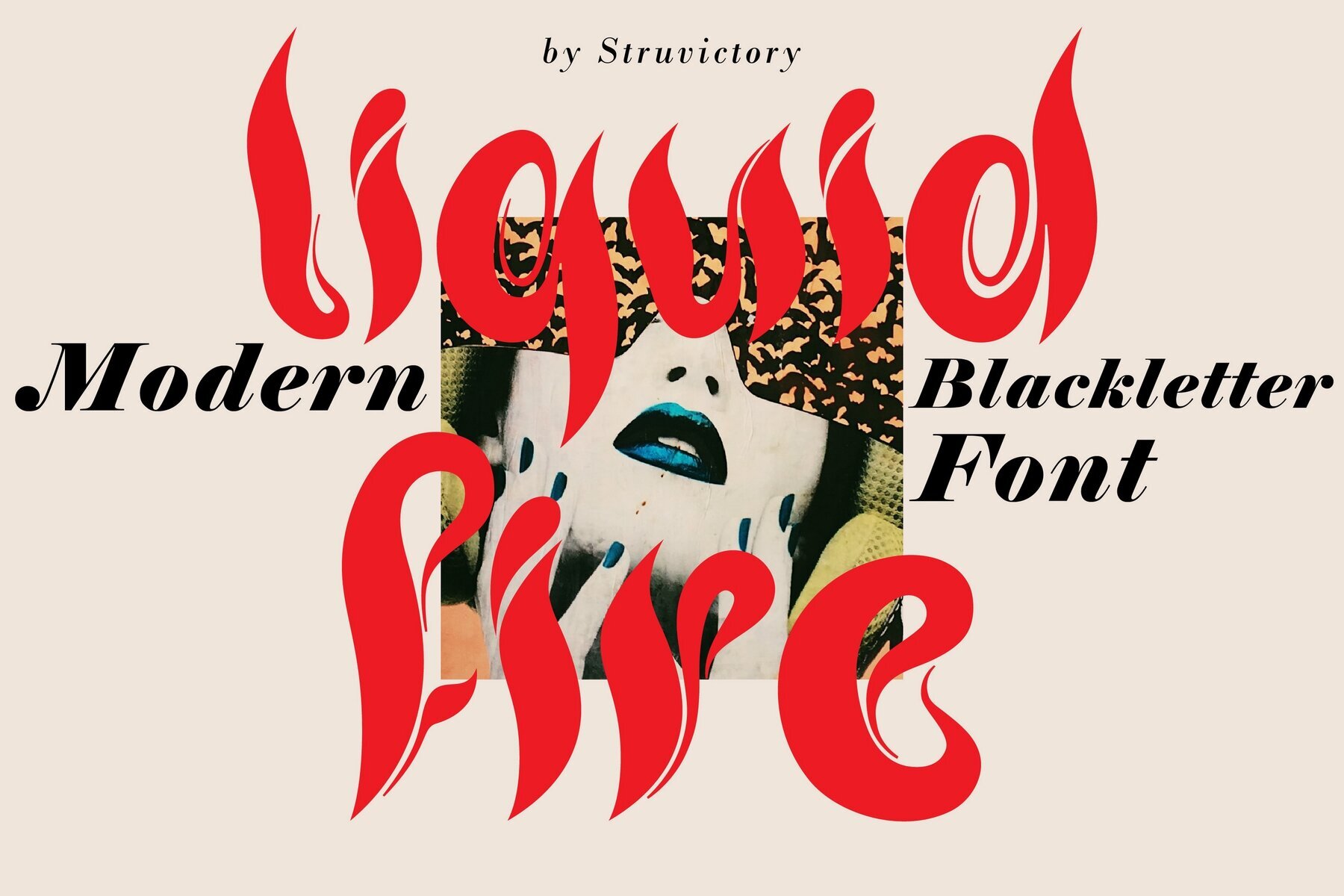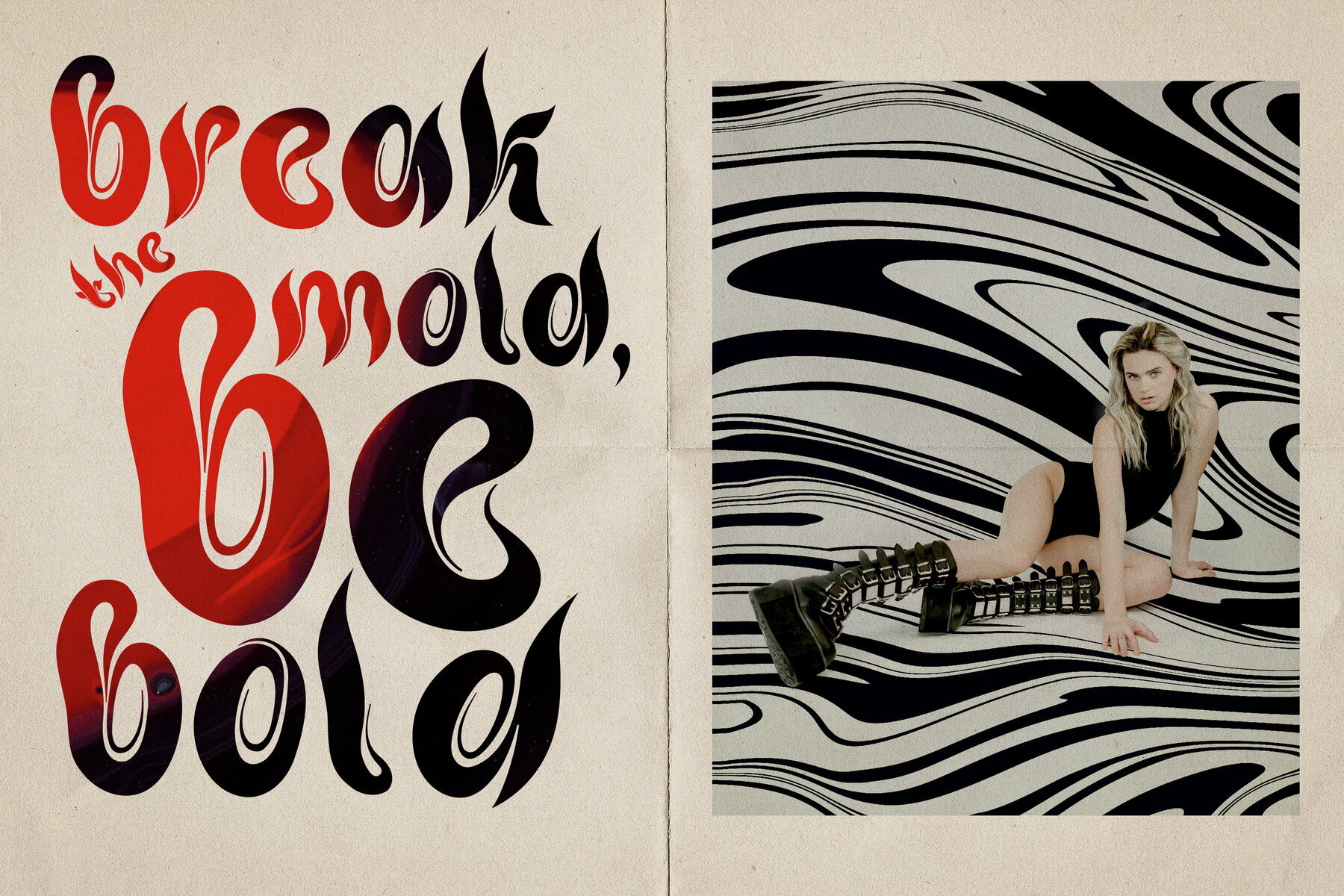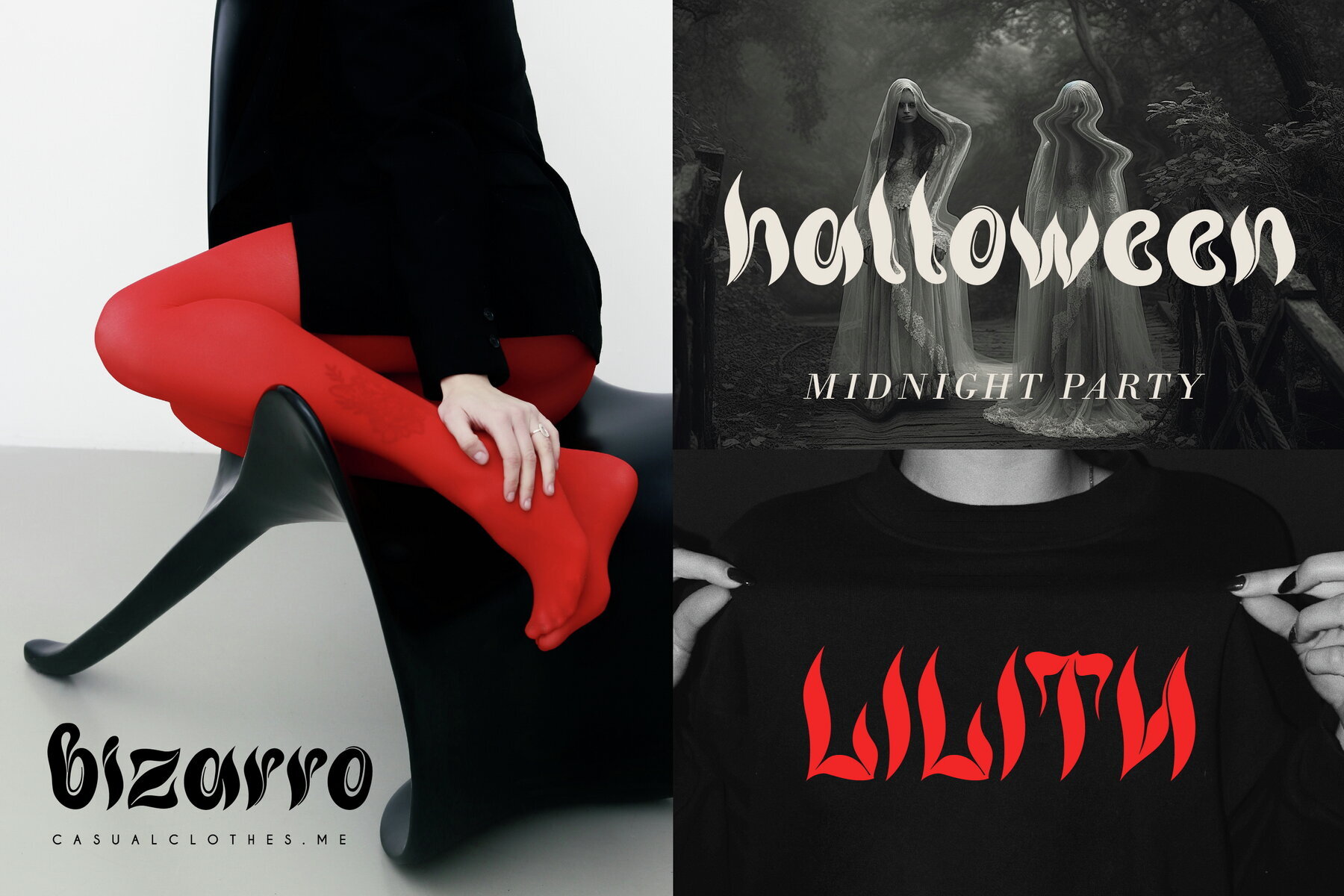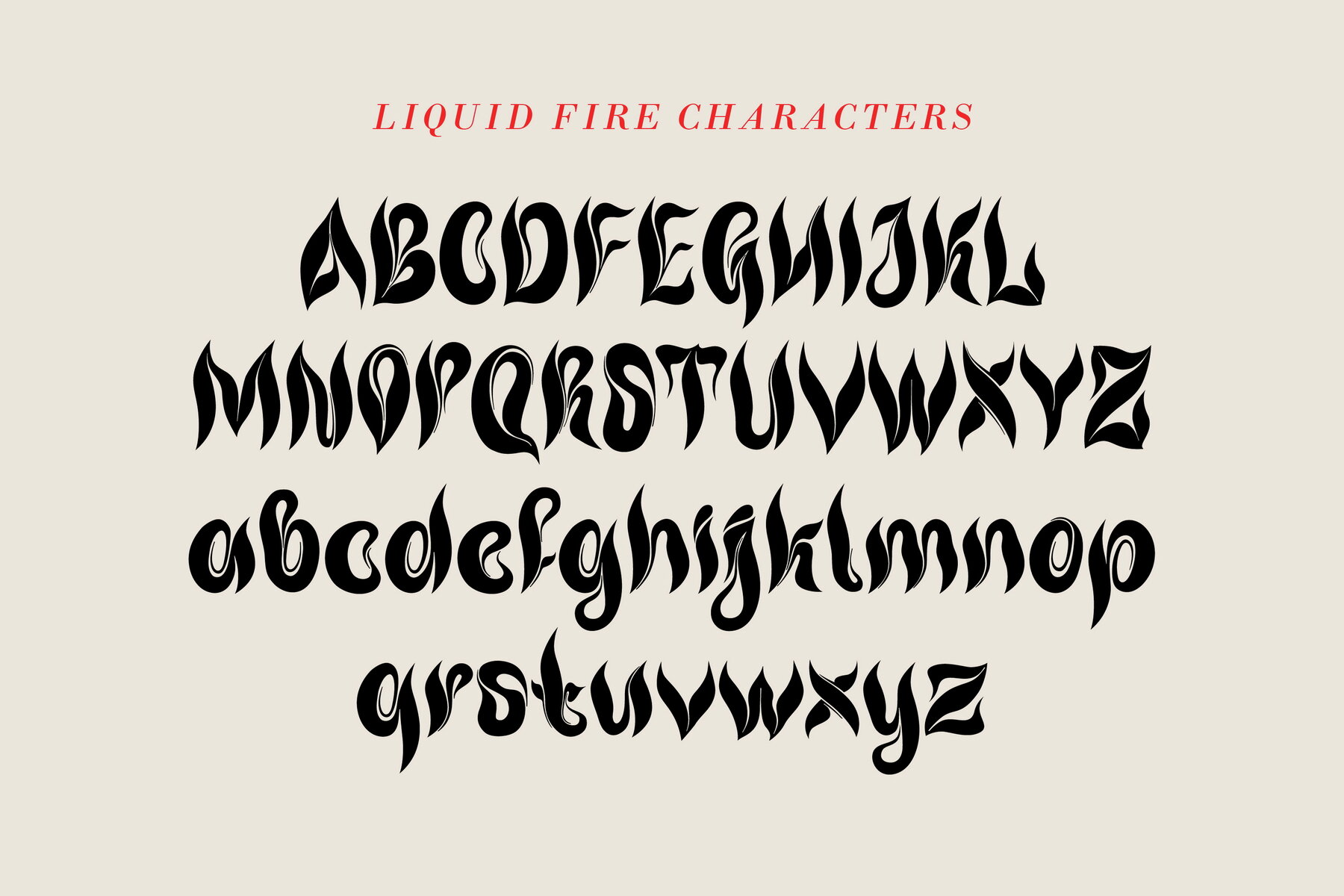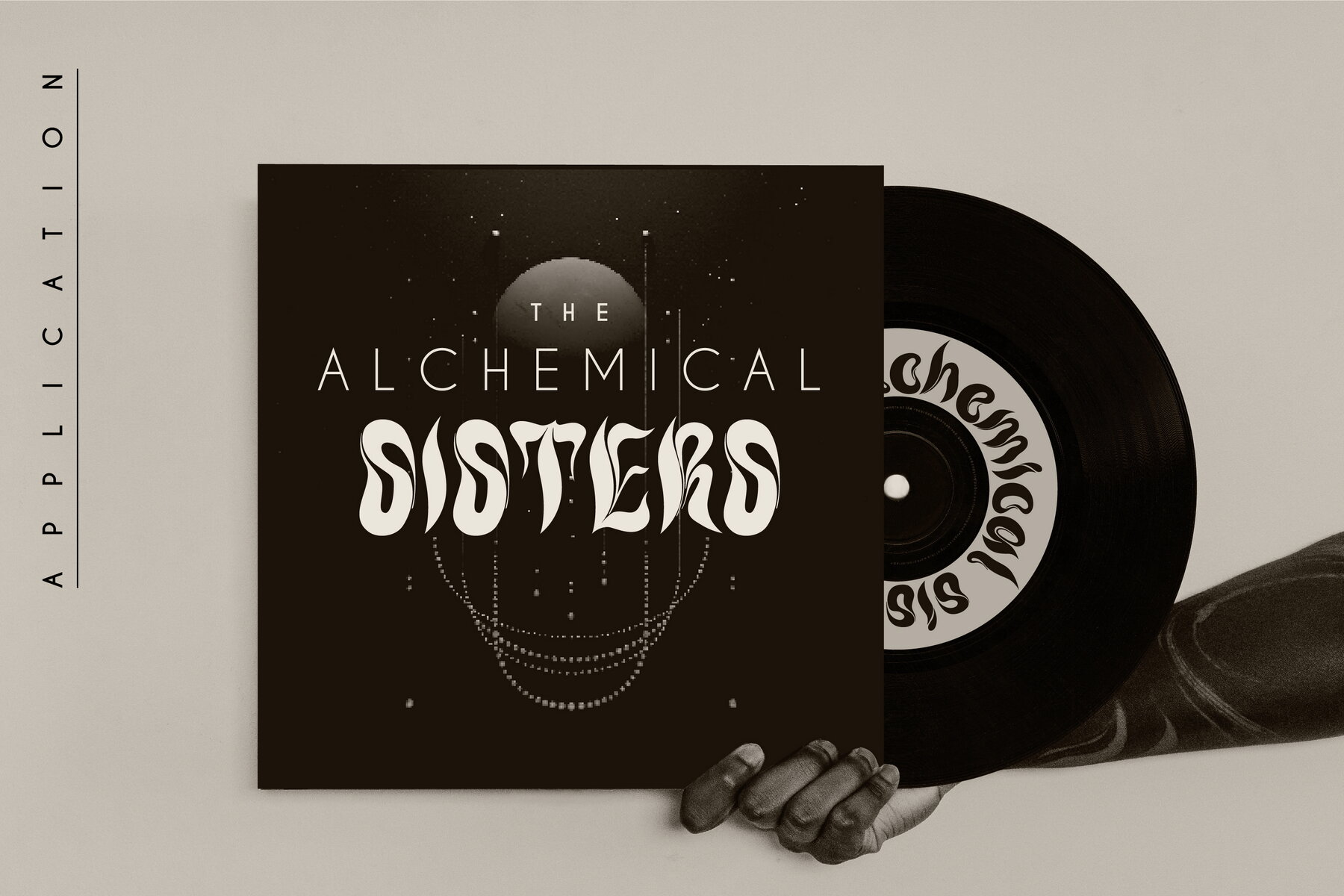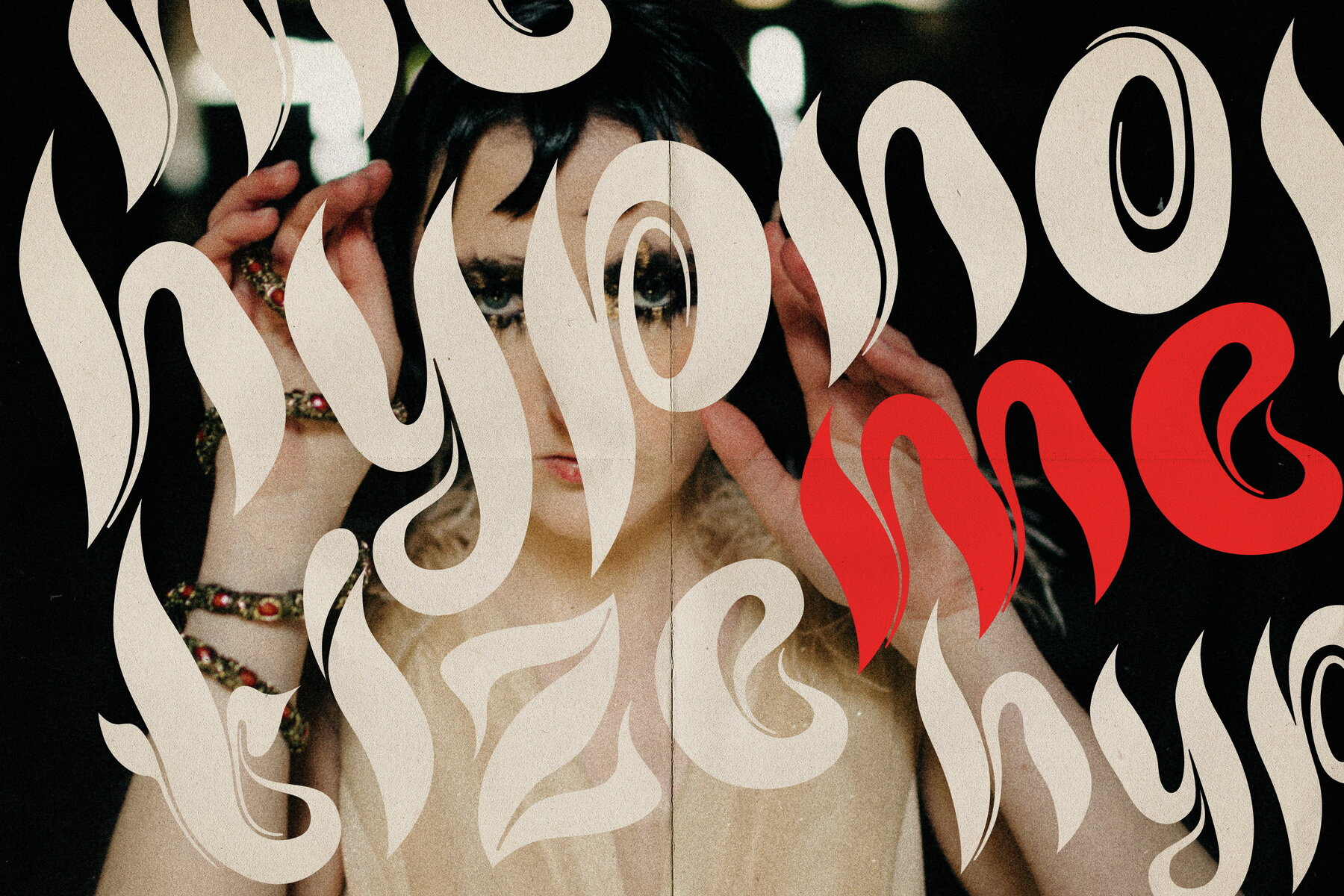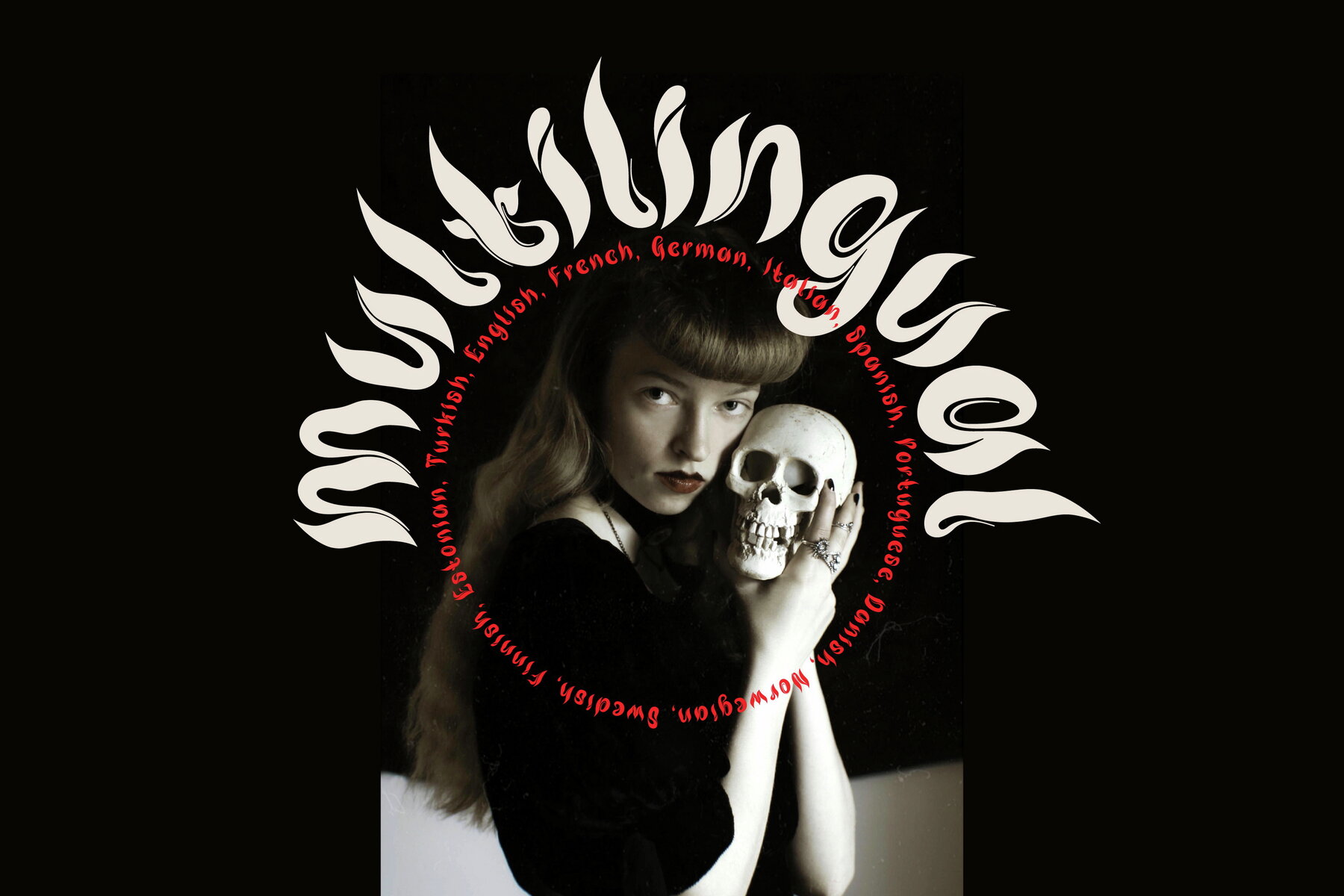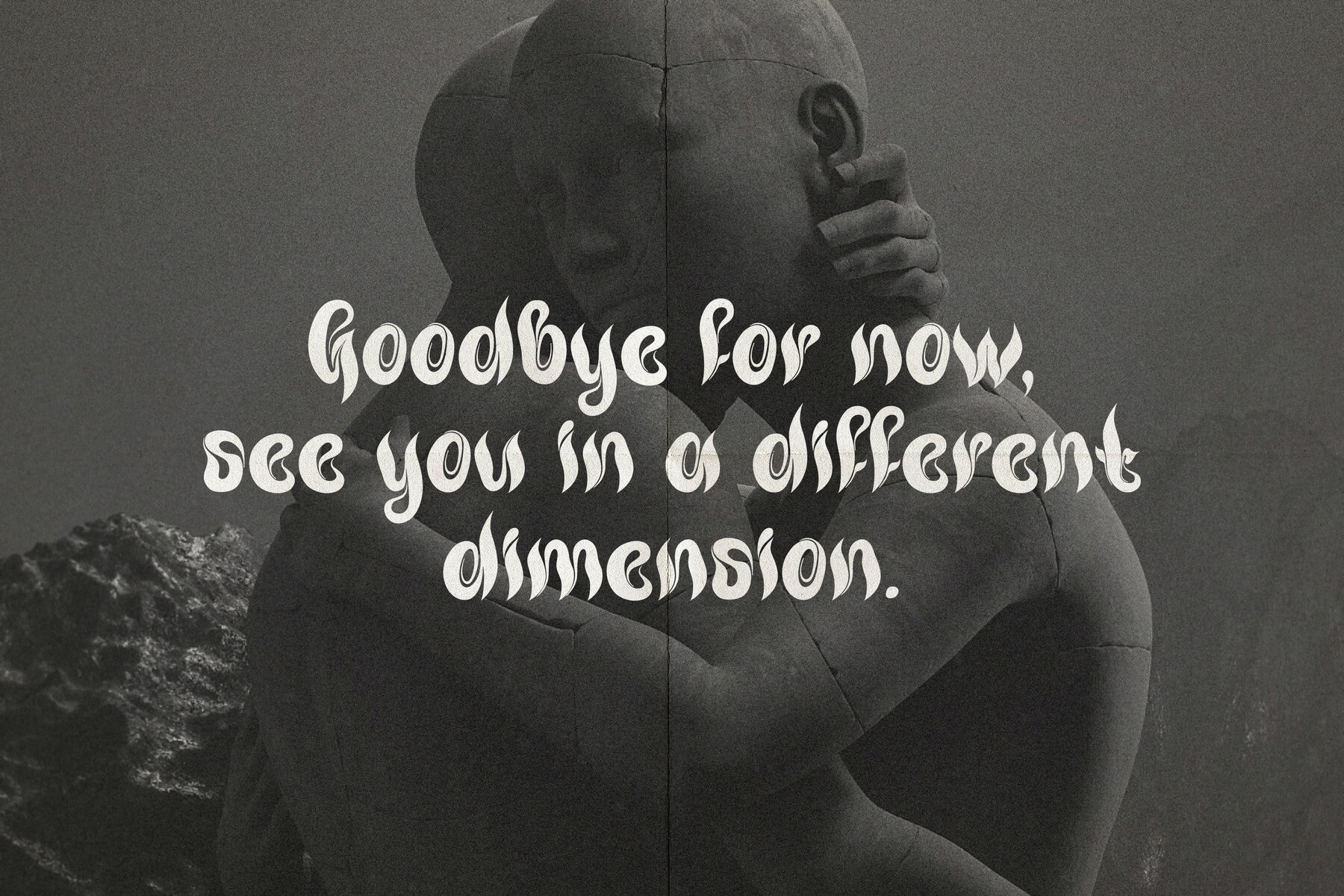
Liquid Fire Font
Liquid Fire
Liquid Fire is a contemporary Gothic typeface featuring fluid forms that embody mystery and sophistication. This avant-garde font merges intricate elegance with a modern flair, making it ideal for logos, branding, editorial layouts, and dark-themed designs. Its unique style offers a fresh take on traditional Gothic motifs, enhancing any project with a touch of mystique.
Designed to support the most popular Latin-based languages, Liquid Fire provides versatility for a range of design needs. Whether you’re crafting an enigmatic brand logo or curating an editorial piece with a dark theme, this font delivers a distinctive aesthetic. Embrace the fluidity and sophistication of Liquid Fire to bring a captivating edge to your creative projects.